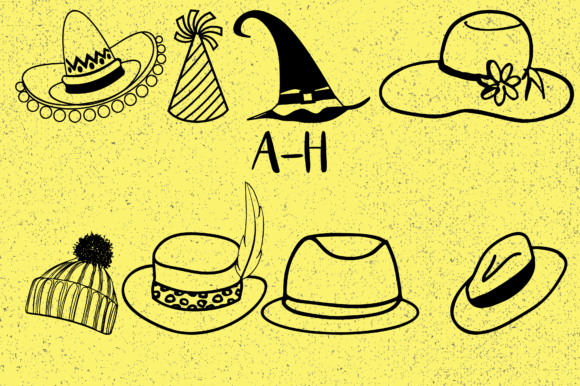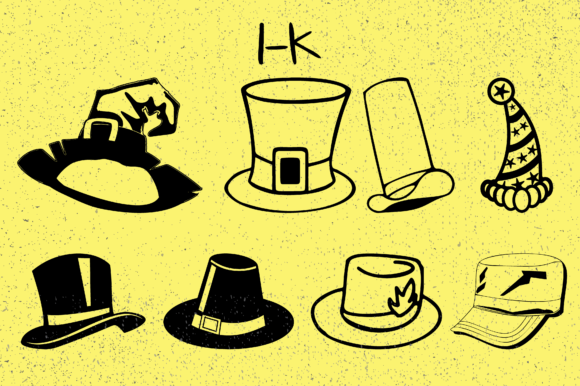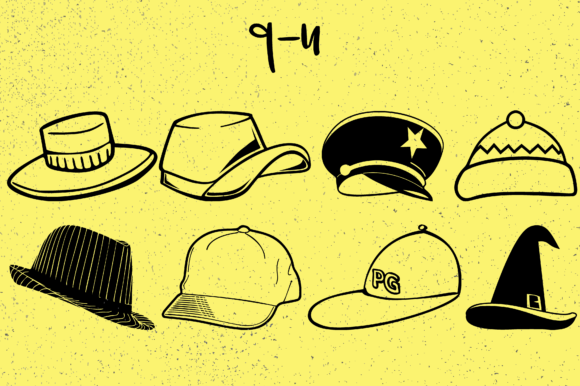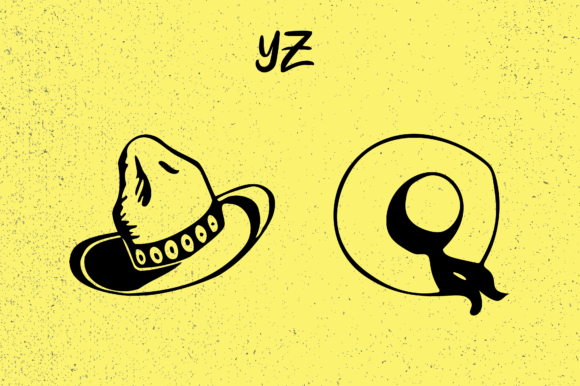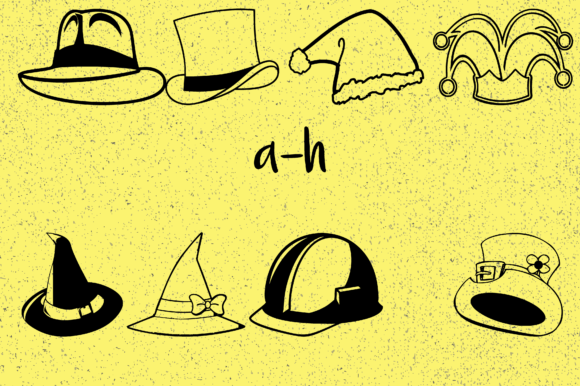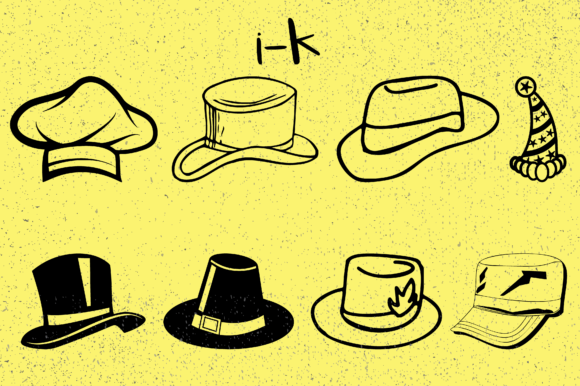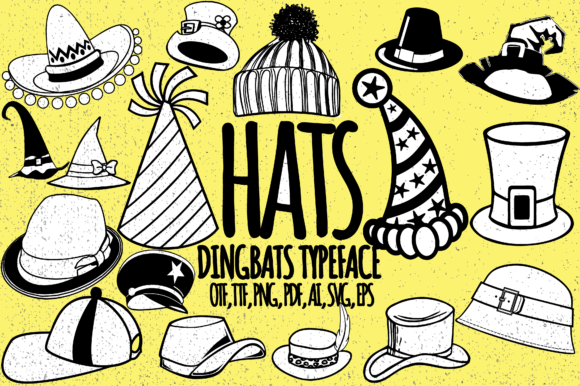
Hats Font: Unlock Endless Headgear Doodles with a Single Typeface
As a designer or crafter, you’re constantly on the lookout for innovative ways to add visual interest to your projects. One often-overlooked resource is the humble dingbats typeface. But today, we’re shining the spotlight on “Hats,” a game-changing font that lets you create a vast array of unique headgear doodles using just letters and numbers.
What is Hats Font?
“Hats” is a specially designed dingbats typeface that translates text into adorable, whimsical headgear illustrations. With Hats Font, you can say goodbye to tedious manual drawing and hello to effortless, customizable illustrations. Whether you’re working on a craft project, designing a logo, or simply looking for a fun way to add visual flair to your digital creations, Hats Font is the perfect tool.
How Does it Work?
Using Hats Font is remarkably straightforward. Simply type letters and numbers, and the font will transform them into an assortment of hats, caps, headbands, and more. The font’s clever design ensures that each character corresponds to a specific headgear illustration, allowing you to generate a vast range of unique designs.
- Easy to use: No drawing skills required! Just type and enjoy your custom headgear doodles.
- Customizable: Experiment with different letter and number combinations to create one-of-a-kind designs.
- Time-saving: Quickly generate illustrations that would take hours to draw manually.
- Versatile: Suitable for a wide range of projects, from crafting and scrapbooking to digital design and branding.
- Fun: Add a playful touch to your work and bring a smile to your audience’s faces.
Hats Font is an ideal addition to any designer’s or crafter’s toolkit. Here are just a few ways you can put this versatile font to use:
- Illustrations: Create custom illustrations for children’s books, greeting cards, or social media graphics.
- Branding: Use Hats Font to design eye-catching logos or icons for fashion, lifestyle, or accessory brands.
- Crafting: Add a personal touch to your scrapbooking, journaling, or paper crafting projects.
- Digital products: Incorporate Hats Font into your digital products, such as printable art, planners, or SVG files.
To get the most out of Hats Font, try experimenting with different:
- Character combinations: Mix and match letters and numbers to create unique headgear designs.
- Colors and textures: Add depth and interest to your illustrations with bold colors and textures.
- Sizes and arrangements: Play with scaling and arranging your headgear doodles to create visually appealing compositions.